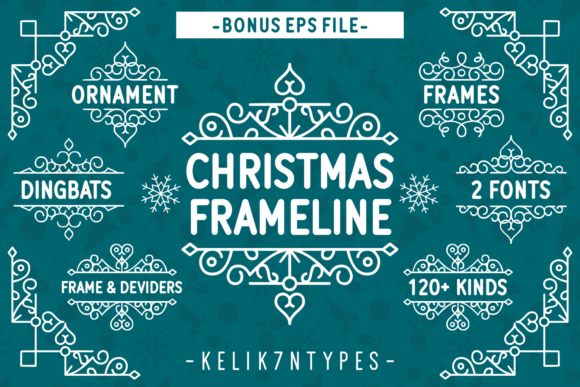
Christmas Frameline Font: A Festive and Versatile Dingbats Font
Are you looking for a unique and creative way to add a touch of Christmas cheer to your designs? Look no further than the Christmas Frameline Font, a useful and distinct dingbats font that is sure to become a wonderful asset to your font library. In this article, we’ll explore the features and benefits of this festive font, and show you how it can enhance any creation.
What is Christmas Frameline Font?
Christmas Frameline Font is a specially designed dingbats font that features a wide range of Christmas-themed frames, borders, and decorations. The font is made up of intricate and detailed designs, each one carefully crafted to capture the spirit of the holiday season. Whether you’re looking to create festive holiday cards, decorations, or social media graphics, this font is sure to provide you with the perfect tools to make your designs shine.
Key Features of Christmas Frameline Font
So, what makes Christmas Frameline Font so special? Here are just a few of the key features that set this font apart:
- Unique and Distinct Designs: Each character in the Christmas Frameline Font is a unique and intricate design, carefully crafted to provide a festive touch to your creations.
- Wide Range of Frames and Borders: The font features a wide range of frames, borders, and decorations, giving you plenty of options to choose from.
Benefits of Using Christmas Frameline Font
So, why should you choose Christmas Frameline Font for your designs? Here are just a few of the benefits of using this versatile font:
- Adds a Touch of Festivity: The font’s festive designs are sure to add a touch of Christmas cheer to any creation.
- Increases Creativity: With its wide range of frames, borders, and decorations, Christmas Frameline Font is sure to inspire your creativity and help you come up with new and unique design ideas.
- Versatile: The font can be used in a variety of different applications, from holiday cards and decorations to social media graphics and more.
- Time-Saving: With Christmas Frameline Font, you can quickly and easily add festive designs to your creations, saving you time and effort.
Examples of Christmas Frameline Font in Use
Christmas Frameline Font can be used in a variety of different applications. Here are just a few examples of how you can use this versatile font:
- Holiday Cards: Use the font to create festive holiday cards for friends and family.
- Social Media Graphics: Add a touch of Christmas cheer to your social media graphics with the font’s festive designs.
- Decorations: Use the font to create festive decorations, such as garlands, banners, and more.
- Web Graphics: Add a touch of festivity to your website with the font’s festive designs.
Christmas Frameline Font is a useful and distinct dingbats font that is sure to become a wonderful asset to your font library. With its wide range of festive frames, borders, and decorations, this font is perfect for adding a touch of Christmas cheer to any creation. Whether you’re looking to create holiday cards, decorations, social media graphics, or more, Christmas Frameline Font is the perfect choice.
- What is Christmas Frameline Font?
- Christmas Frameline Font is a dingbats font featuring a wide range of Christmas-themed frames, borders, and decorations.